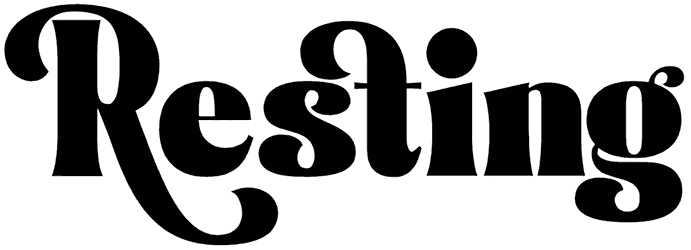
Resting Font
Using a classic and chic letterform, like what this serif font can provide, will help you to impress different tastes. The Resting font’s letters can be used for different classic and modern projects, from a daily Instagram post to a business card for a manager. Numbers are unavailable, but you can use this basic font for your creative projects and make them memorable.